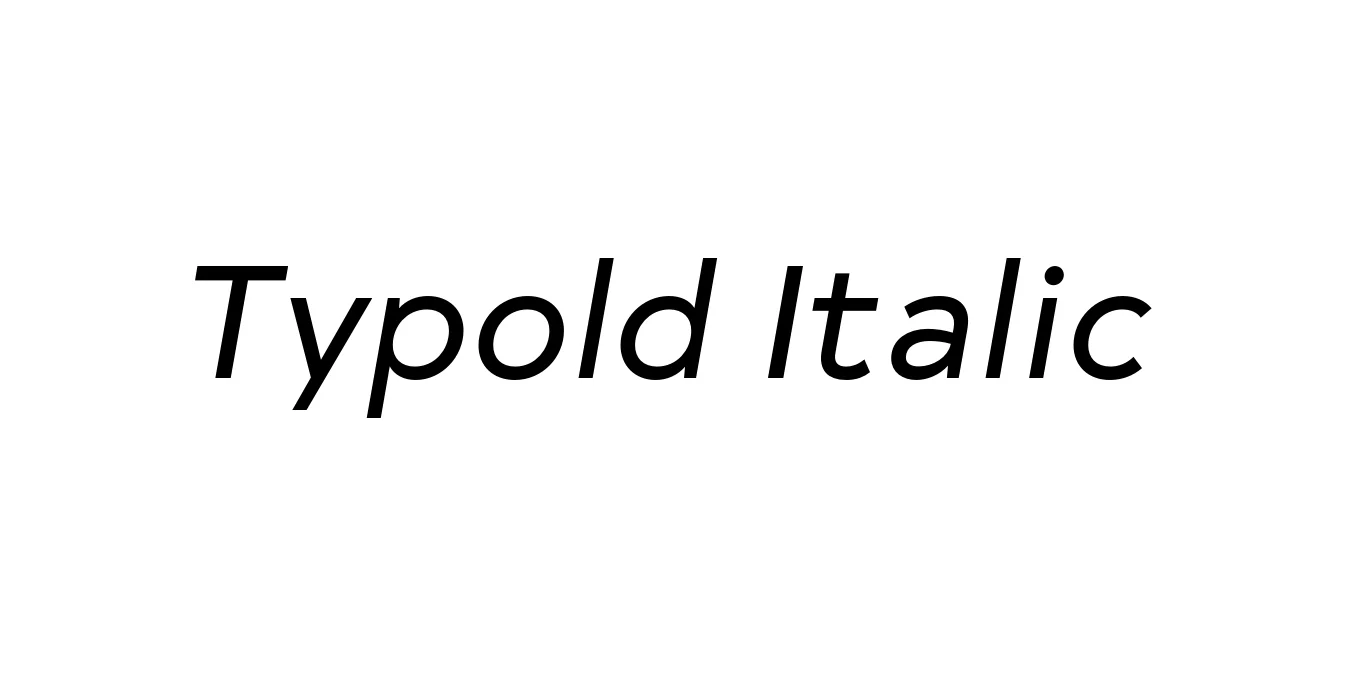
Typold Italic
Designed by Jonathan Hill
Typold Italic is a contemporary geometric sans-serif typeface designed by Jonathan Hill for The Northern Block foundry. Developed with a focus on mathematical precision and clarity, it represents a refined evolution of the classic geometric style. The italic variant is meticulously sloped to preserve the structural balance of the family while introducing a sense of fluid motion, making it ideal for emphasizing text within complex typographic hierarchies or creating a sense of forward momentum in design.
As a member of the larger Typold superfamily, this font is engineered to perform across a wide range of digital and print media. Its clean lines and open counters ensure high legibility at small sizes, while its distinct character shines in large-scale display settings. The Typold series has become a staple for designers seeking a versatile, professional aesthetic that bridges the gap between classic modernist principles and 21st-century digital functionality.
Typold Italic Best Uses
Ideal for logos and professional identity systems requiring a modern edge.
Clean and legible for high-performance user interfaces and body text.
Excellent for magazine layouts, headers, and pull-quotes.
High visibility and clarity for environmental graphics and wayfinding.